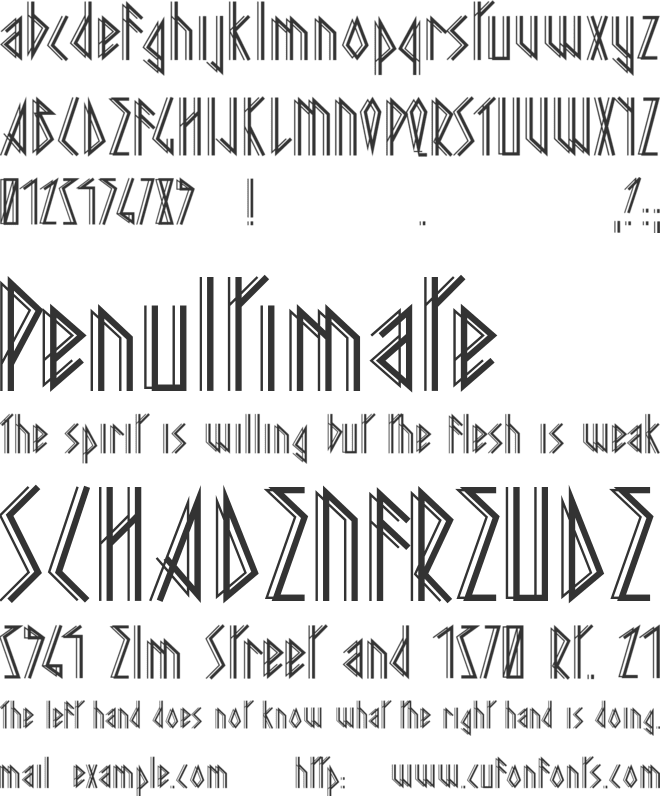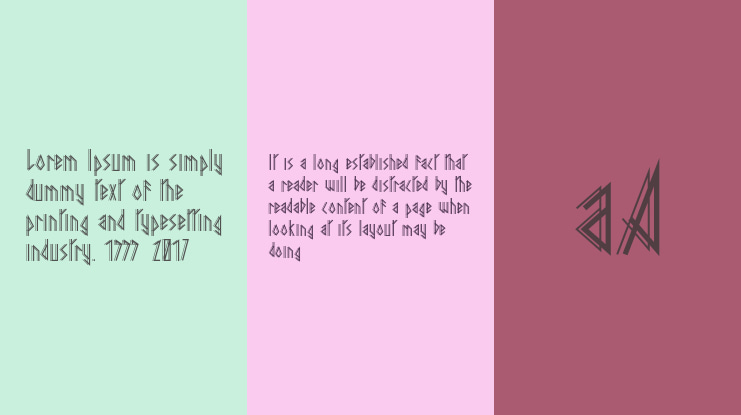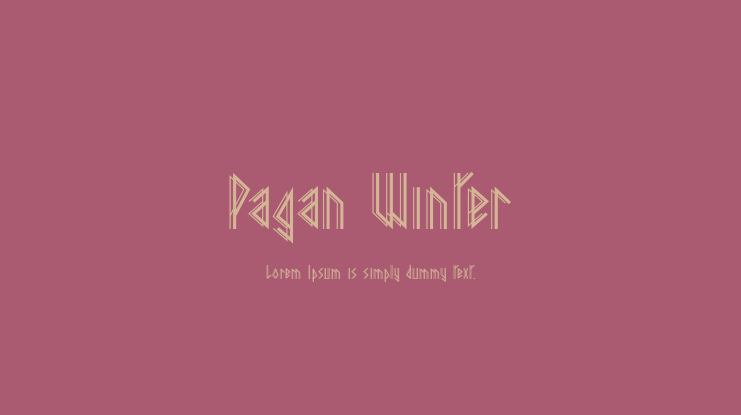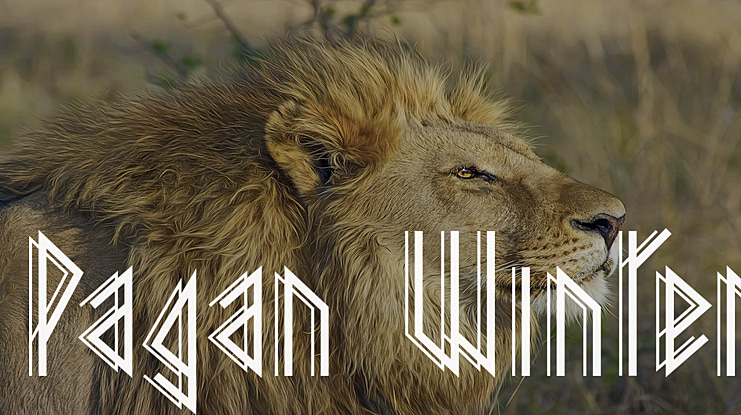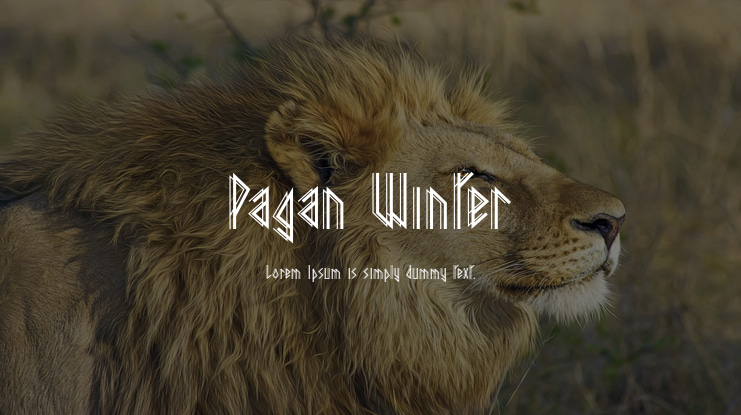
Pagan Winter Font
PAGAN WINTER is another font inspired by Szekely-Hungarian runes. I added some dimension to make it more stylish.
The name comes from the song „Pagan Winter” by Sear Bliss